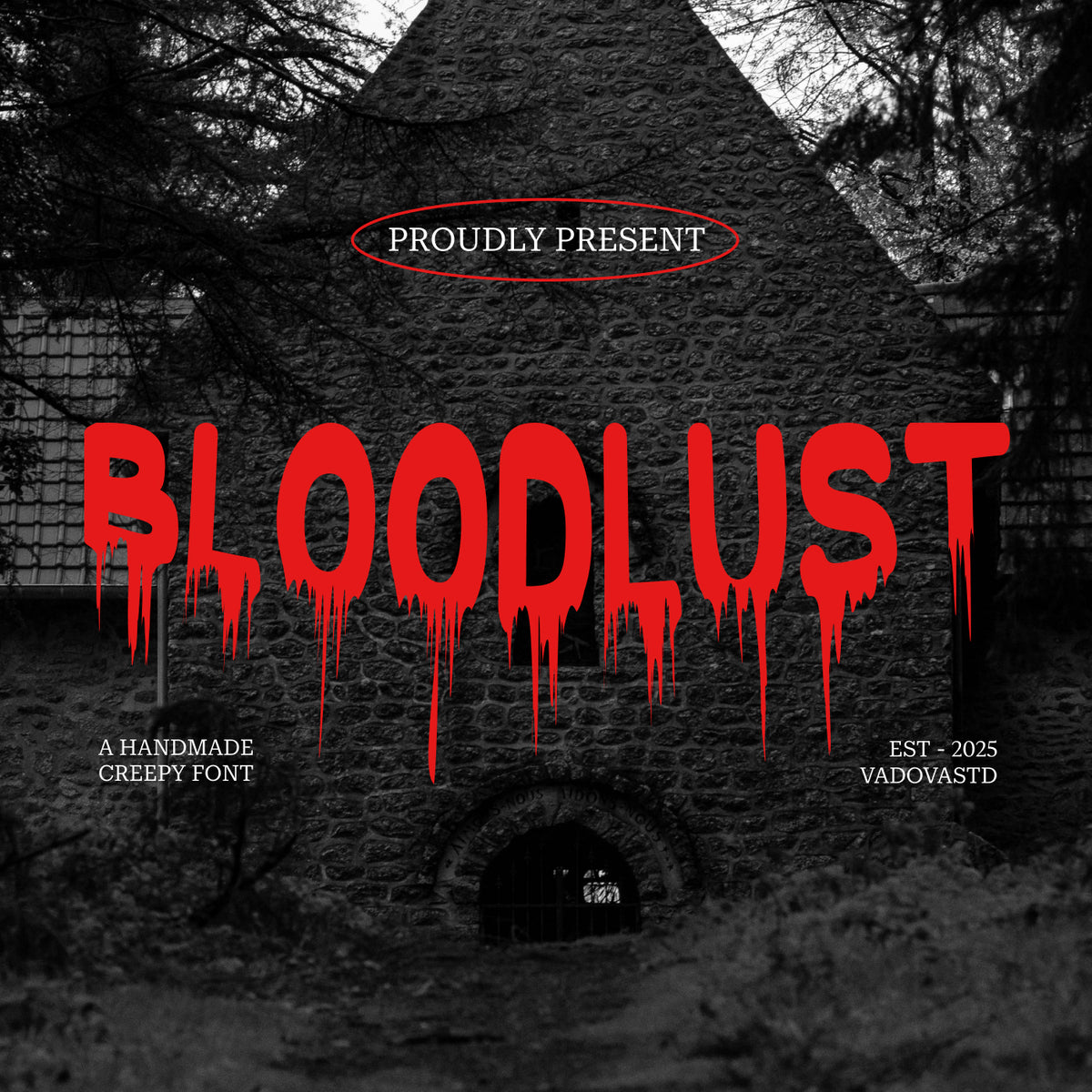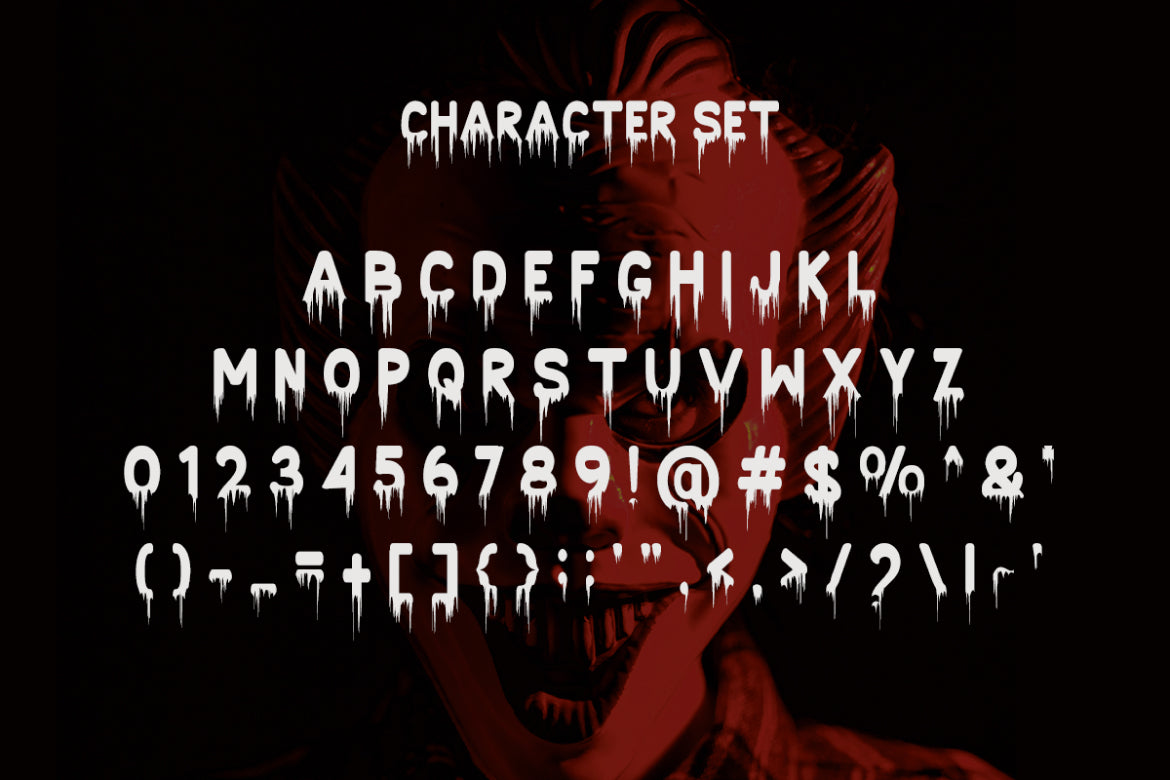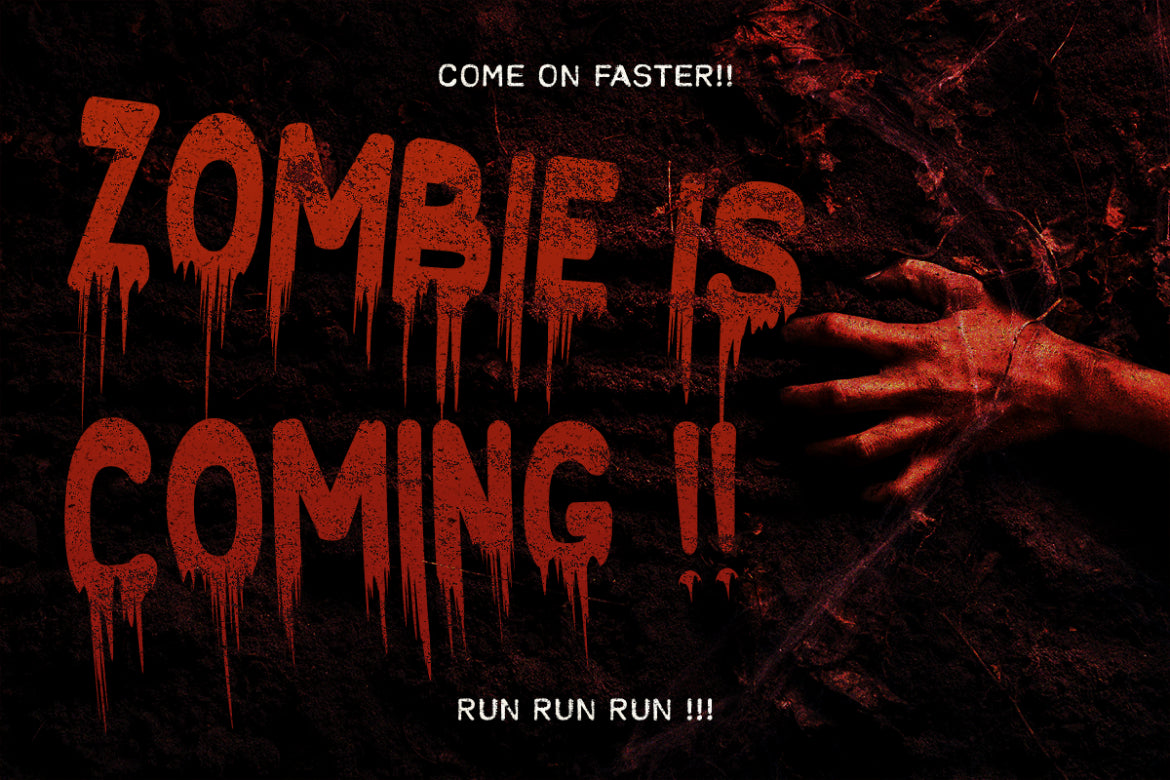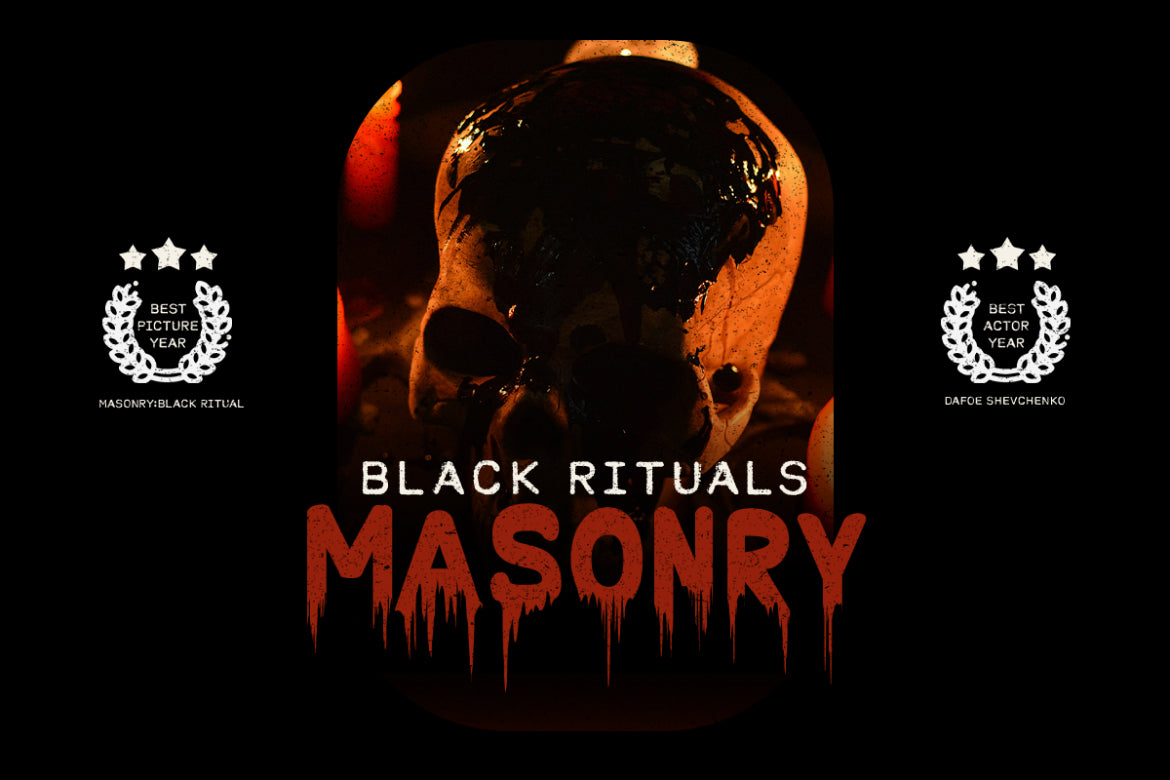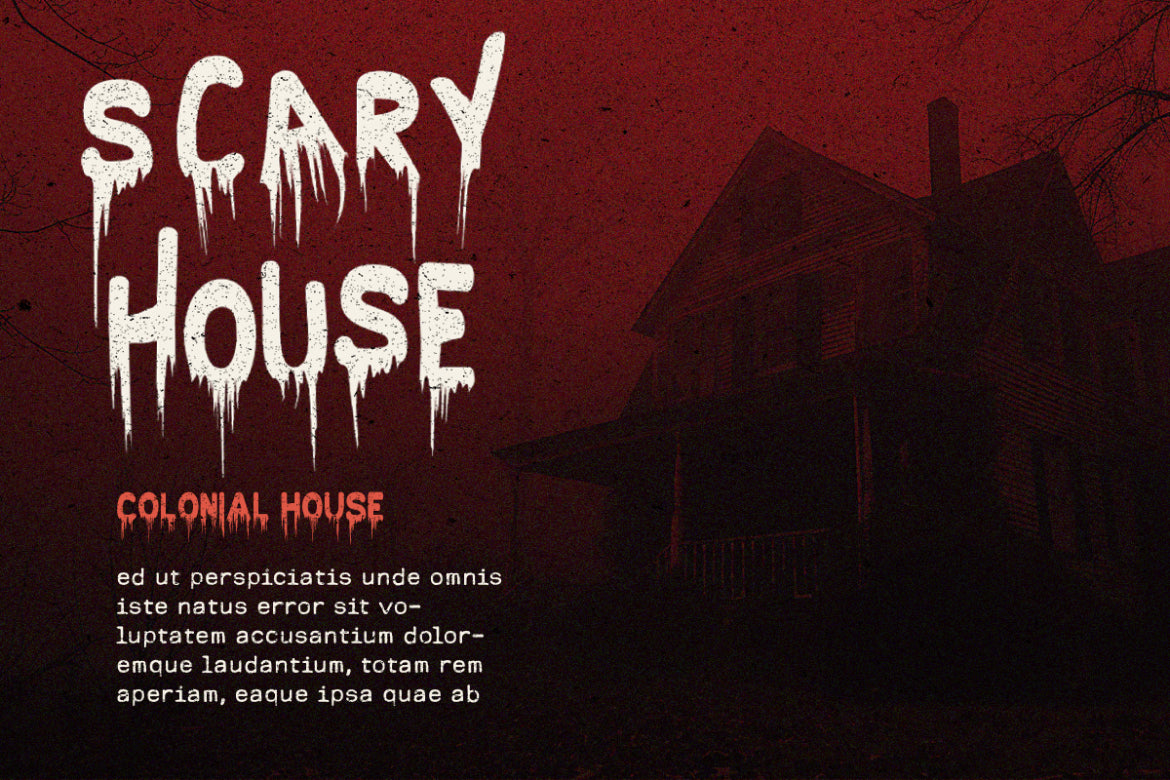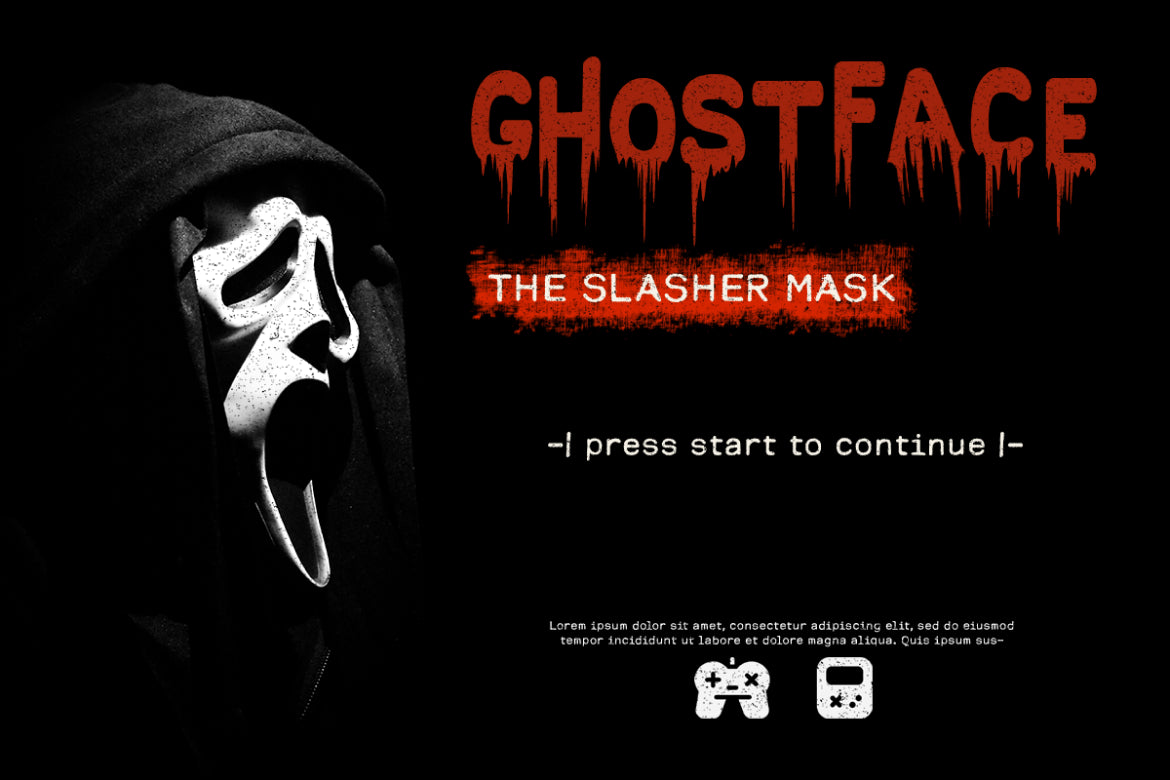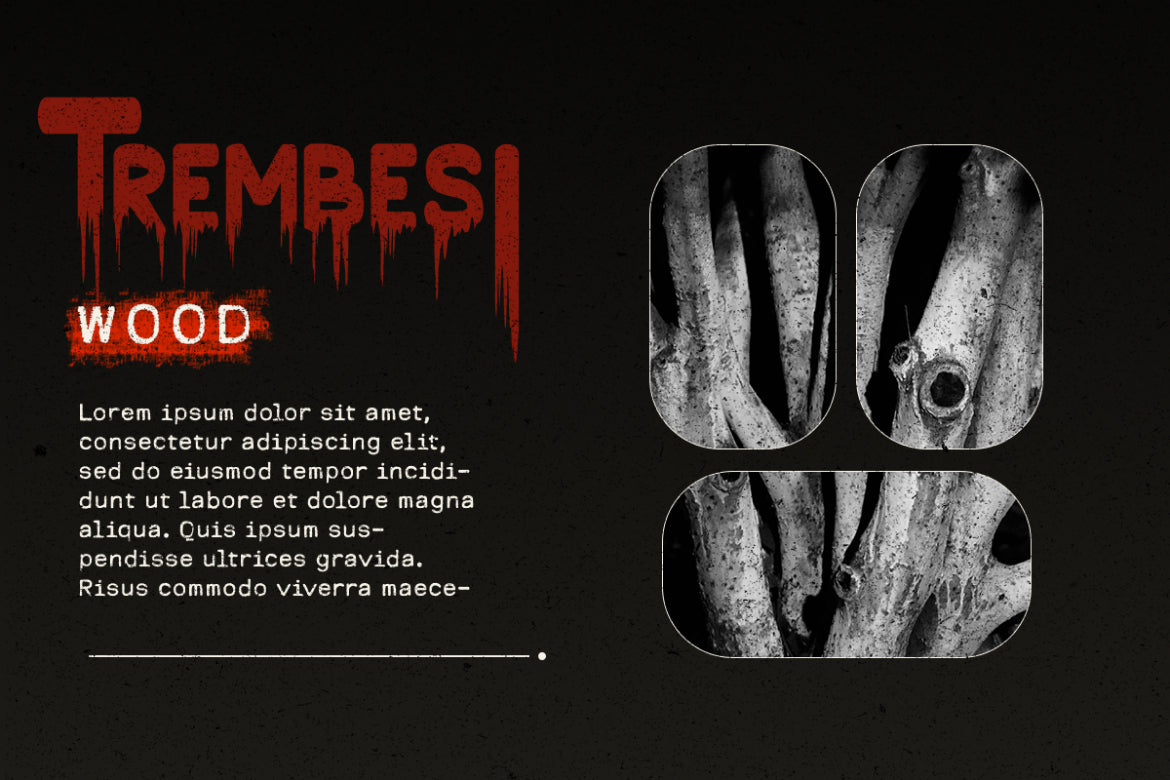
Bloodlust Handmade Creepy Font
Bloodlust showcases a terrifying dripping letter style inspired by classic horror movies, haunted visuals, slasher posters, and dark thriller aesthetics. The font includes uppercase characters, numbers, punctuation, symbols with handcrafted horror details that create an intense spooky atmosphere. Its sharp dripping texture and handmade irregular forms deliver a disturbing cinematic appearance perfect for Halloween projects, horror branding, gaming graphics, movie titles, album covers, merchandise, posters, and dark editorial compositions.
Relevance & Use Cases is highly relevant for horror-themed creative projects including Halloween posters, haunted house promotions, horror movie titles, thriller branding, scary YouTube thumbnails, gaming interfaces, dark album covers, spooky merchandise, and horror event campaigns. Its dripping blood-inspired style creates a dramatic visual impact that works especially well for cinematic graphics, gothic branding, paranormal content, horror podcasts, tattoo-inspired visuals.
Bloodlust is a handmade decorative font featuring a dripping horror-style design with uppercase and lowercase characters, numerals, and punctuation. It is available in TTF, OTF, and WOFF formats.